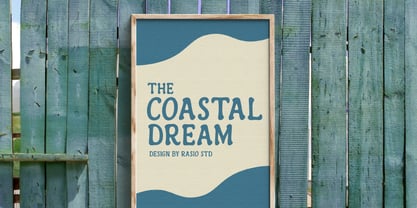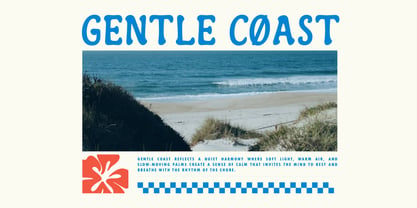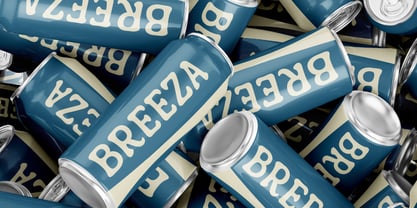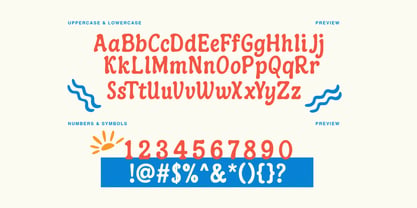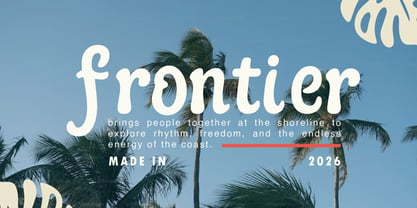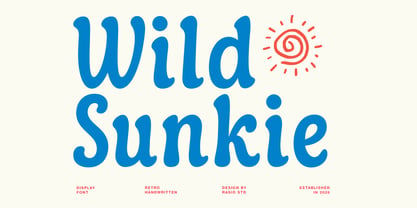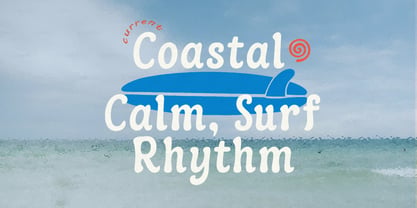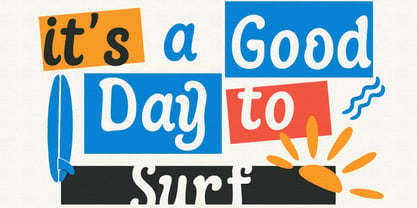
Wild Sunkie
von Rasio Studio
Die Schriftfamilie Wild Sunkie wurde von Fajar Indra entworfen und von Rasio Studio veröffentlicht. Wild Sunkie enthält 1 Stile. Mehr über diese Familie
Wild Sunkie is a retro-inspired handwritten display font that brings a carefree and sunny vibe to your design. This typeface features bouncy curves, soft strokes, and a handwritten charm that echoes vintage beach posters and playful typography. The font includes full uppercase and lowercase characters, numerals, punctuation, and symbols. Wild Sunkie is perfect for projects aiming to capture a fun and nostalgic tone. It's especially fitting for summer-themed campaigns, surf shops, beachwear branding, vacation posters, and kids’ product packaging. With its handwritten style and organic flow, it offers an inviting, personal touch while still being bold enough for display purposes.
Designer: Fajar Indra
Foundry: Rasio Studio